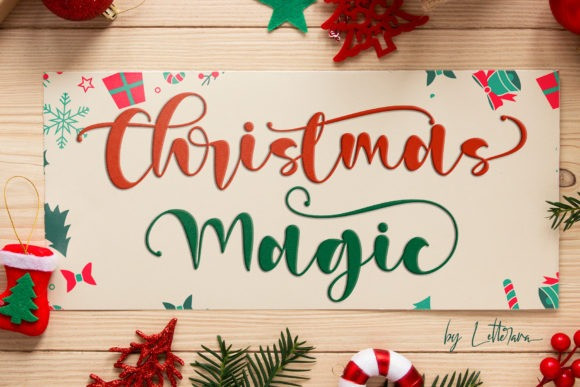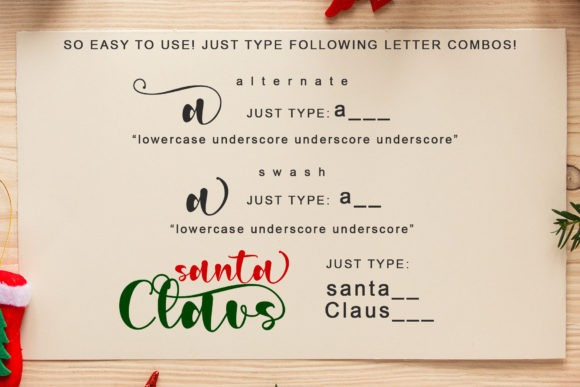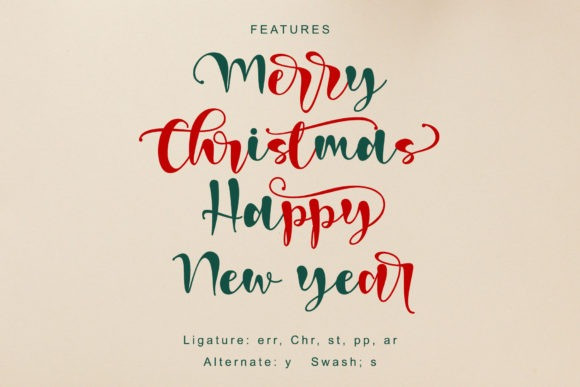
Christmas Magic Calligraphy Font
Christmas Magic is an elegant and flowing handwritten font. It is PUA encoded which means you can access all of the glyphs and swashes with ease! It features a varying baseline, smooth lines, gorgeous glyphs, and stunning alternates. It maintains its classy calligraphic influences while feeling contemporary and fresh. Fall in love with its incredibly distinct and timeless style and use it to create spectacular designs!